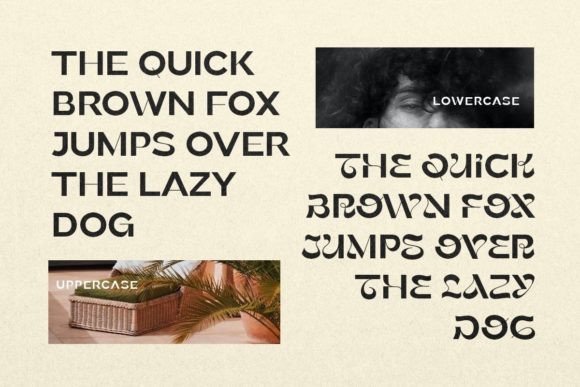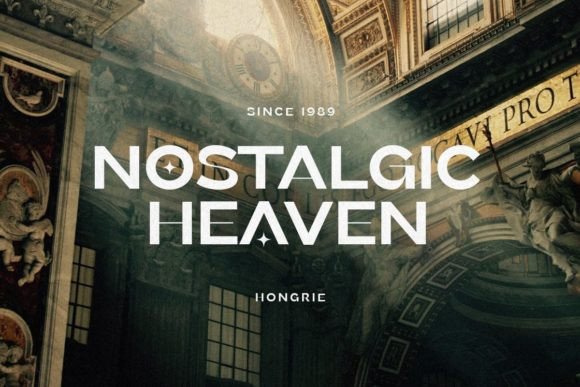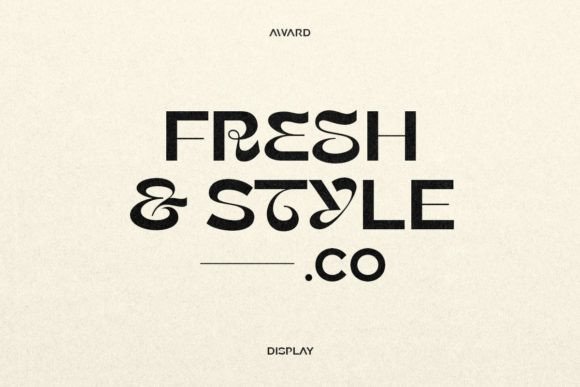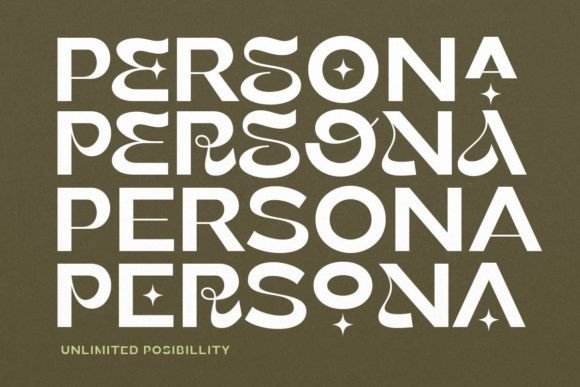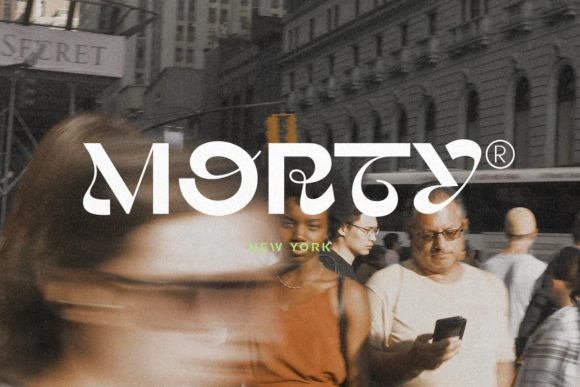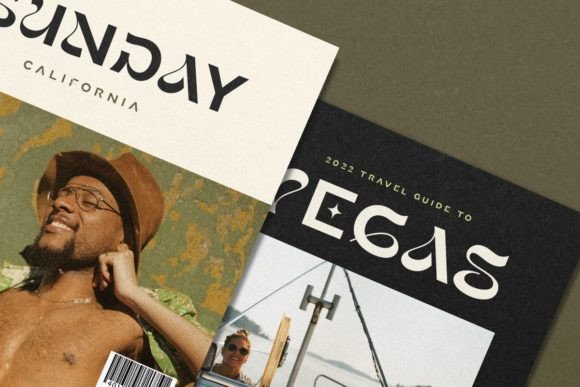
The Moment You Want to Shine
Remember the rush you feel when your hard work is finally recognized? The thrill of receiving an award, the pride of seeing your name in lights – it’s a feeling like no other. As creatives, we pour our hearts and souls into our work, and when it pays off, it’s a moment to savor.
That’s why we’re excited to introduce the Awards Font, a modern and stylish typeface designed specifically for the moments that matter. With its sleek sans-serif design, unique lowercase characters, and stylish ligatures, this font is perfect for branding and logo design. Whether you’re a graphic designer, a UI/UX specialist, or a marketing guru, the Awards Font is a valuable tool in your creative arsenal.
Awards Font Key Features
- Font Family: Awards Font is a custom-designed font family, offering a unique and elegant look for various award and recognition purposes.
- Font Size: Supports a wide range of font sizes, from 8pt to 72pt, making it suitable for various award and recognition applications.
- Resolution: Designed for high-resolution displays, Awards Font looks great at resolutions up to 300 DPI (dots per inch), ensuring crisp and clear text.
- Unique Characteristics: The font features intricate details, ornate flourishes, and a luxurious feel, setting it apart from standard fonts and making it ideal for high-end awards and recognition programs.
Awards Font Review
Awards Font is a stunning display font designed specifically for highlighting achievements and success. ✨ Its elegant and sophisticated design makes it perfect for awards ceremonies, trophy presentations, and other celebratory events.
Here are some of the things that work well with Awards Font:
- ✨ Elegant and sophisticated design that adds a touch of luxury and sophistication to any event.
- ✨ Highly customizable, with a wide range of font sizes, colors, and styles to choose from.
- ✨ Compatible with a variety of digital platforms, including web, print, and presentation software.
- ⚠️ Limited font weights and styles, which may limit its versatility in certain design applications.
- ⚠️ May not be as effective for more casual or informal events, where a more playful or whimsical font may be more suitable.
Overall, Awards Font is a high-quality font that excels in its purpose. While it may have some limitations, its elegant design and versatility make it a great choice for anyone looking to add a touch of sophistication to their awards and recognition events.
The Awards Font is commonly used for:
- Creating award certificates and trophies
- Designing event invitations and promotional materials
- Adding a touch of elegance to business presentations and reports
Tips for Getting the Most Out of the Awards Font
For optimal results, use the Awards Font in combination with other elegant fonts and design elements, such as gold or silver foil effects and ornate borders. Experiment with different font sizes and colors to achieve the desired look and feel.
Great Vibes is a modern, elegant script font that works well for formal events and luxury brands. It’s a great choice for designers who want to create a sophisticated and high-end look. Compared to Awards Font, Great Vibes has a more refined and polished feel, making it suitable for corporate events and upscale occasions.
Playfair Display is a luxurious, high-end font that exudes elegance and sophistication. It’s perfect for designers who want to create a sense of grandeur and opulence. While Awards Font is more playful, Playfair Display is more formal and refined, making it a better choice for high-end events and luxury brands.
Is the Awards Font available in different weights and styles?
Yes, the Awards Font is available in various weights and styles, including bold, italic, and condensed versions. These variations can be used to create different visual effects and emphasize specific text elements. You can also use the font’s built-in features, such as ligatures and swashes, to add more flair to your designs.